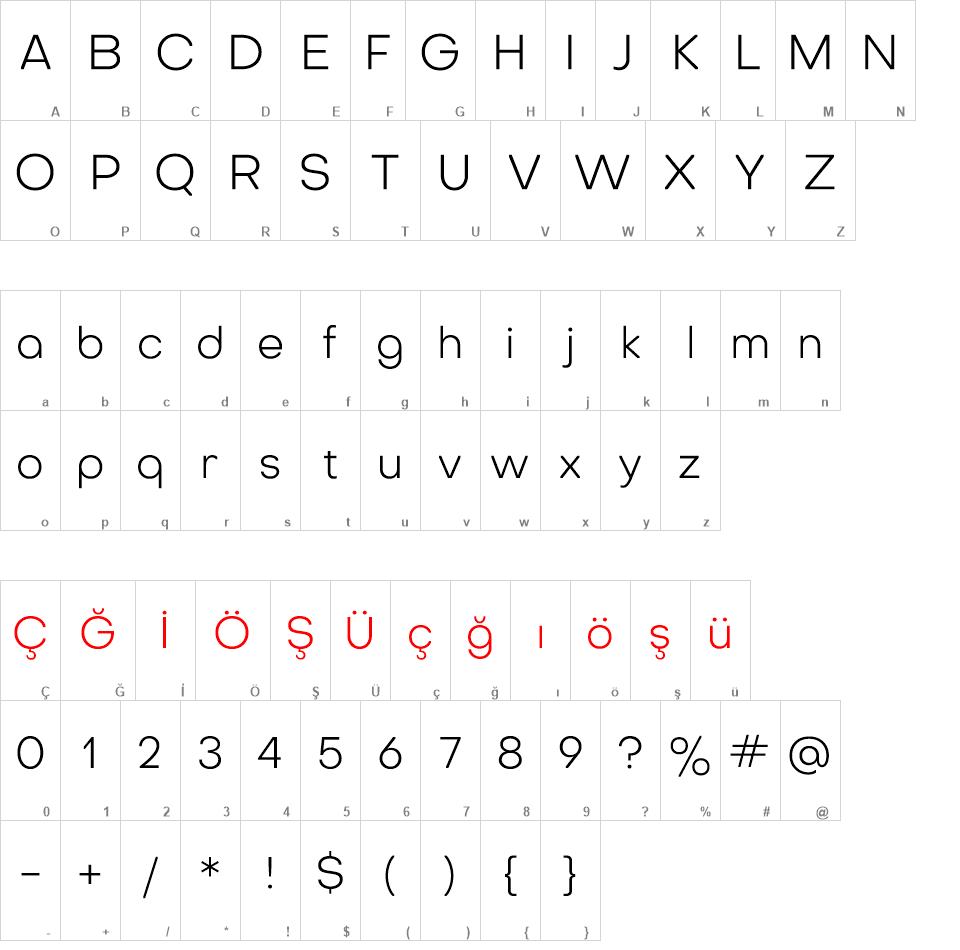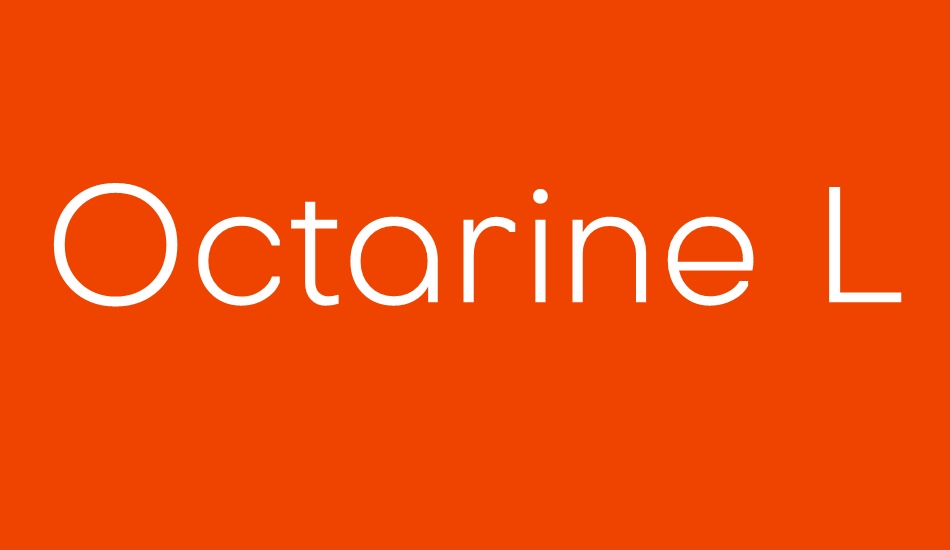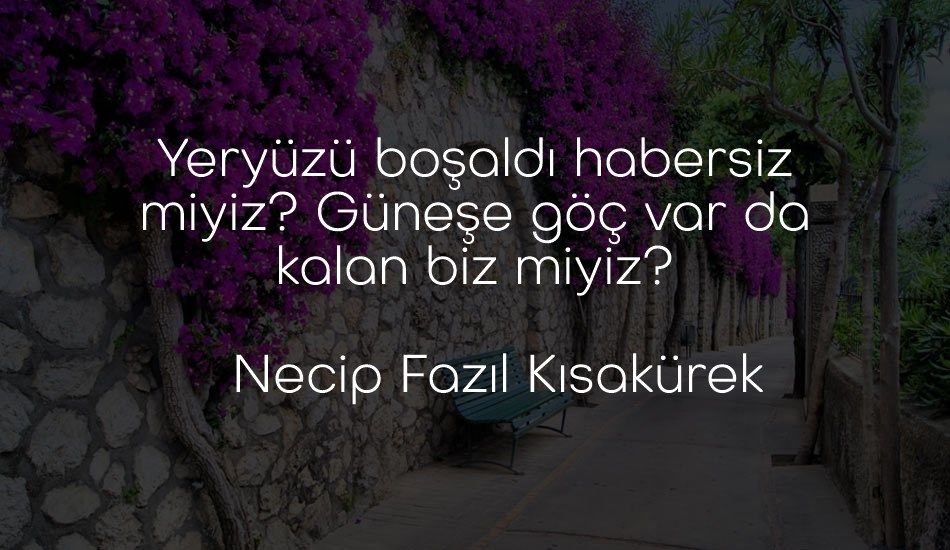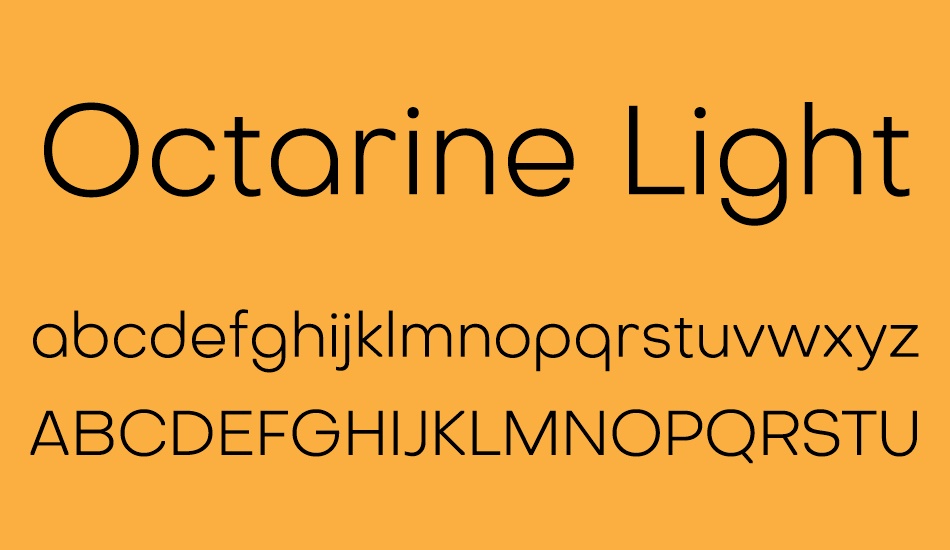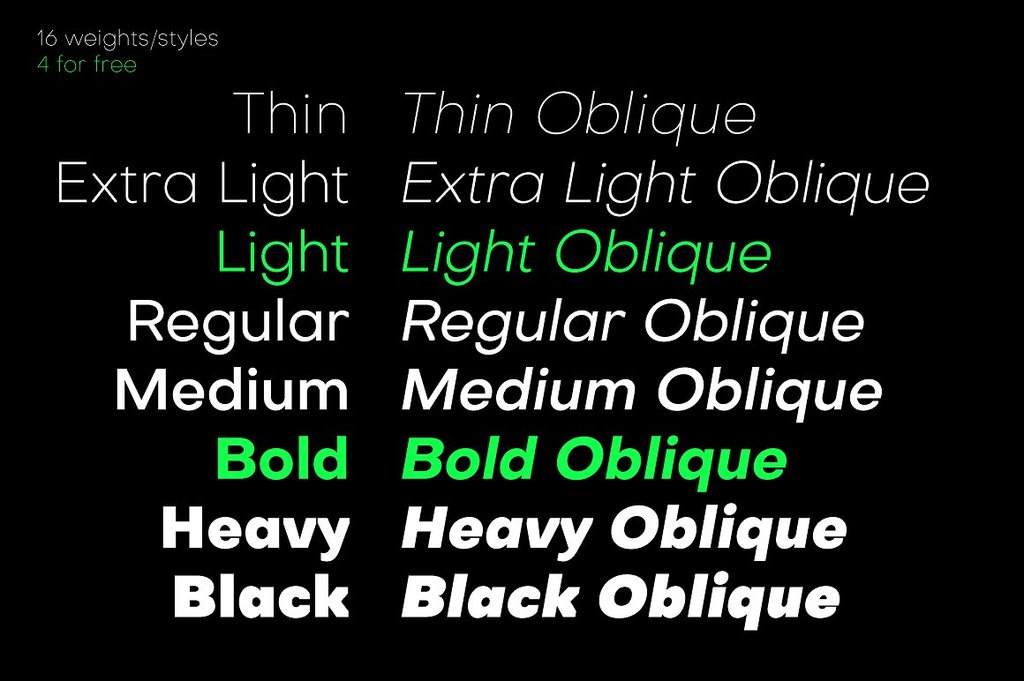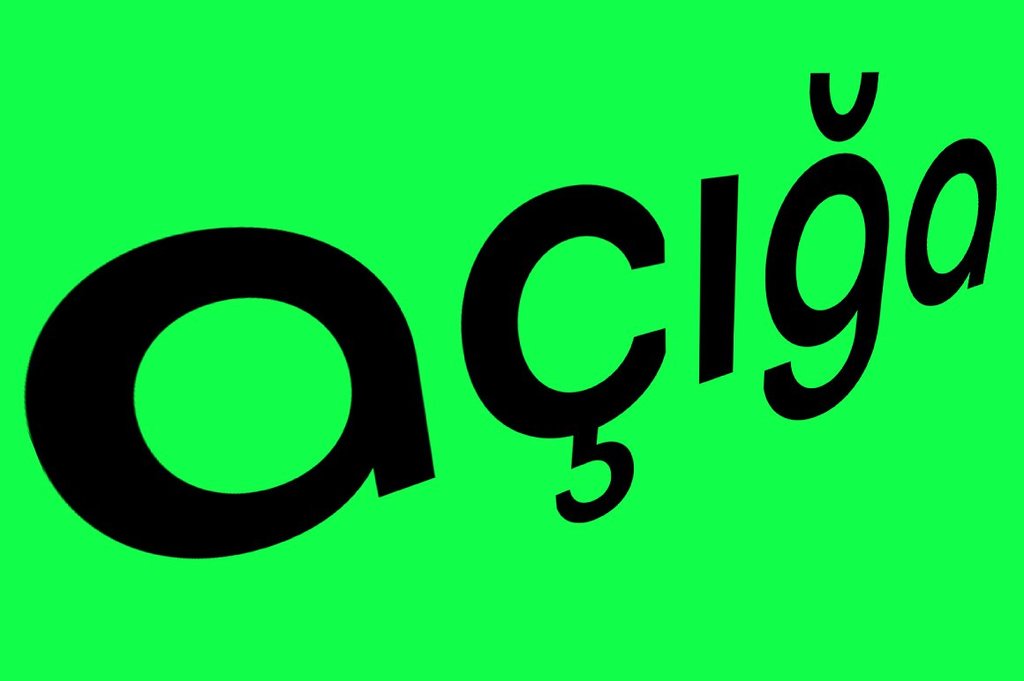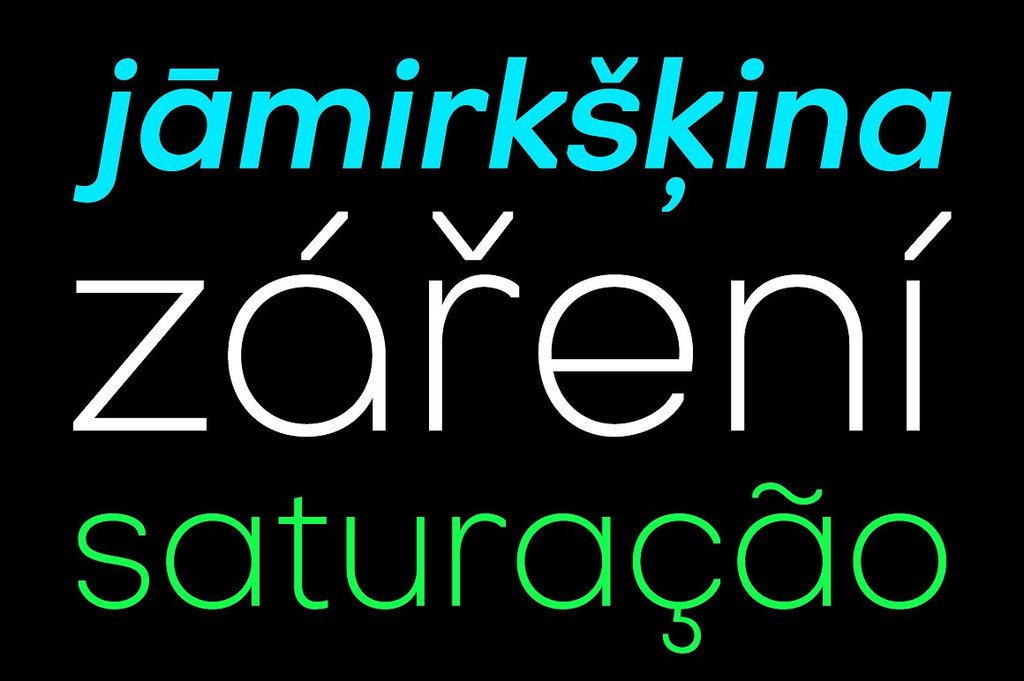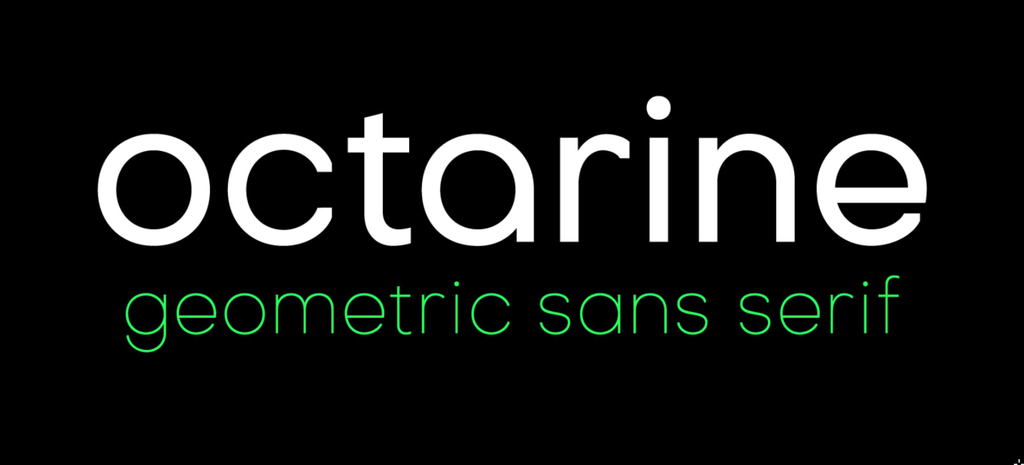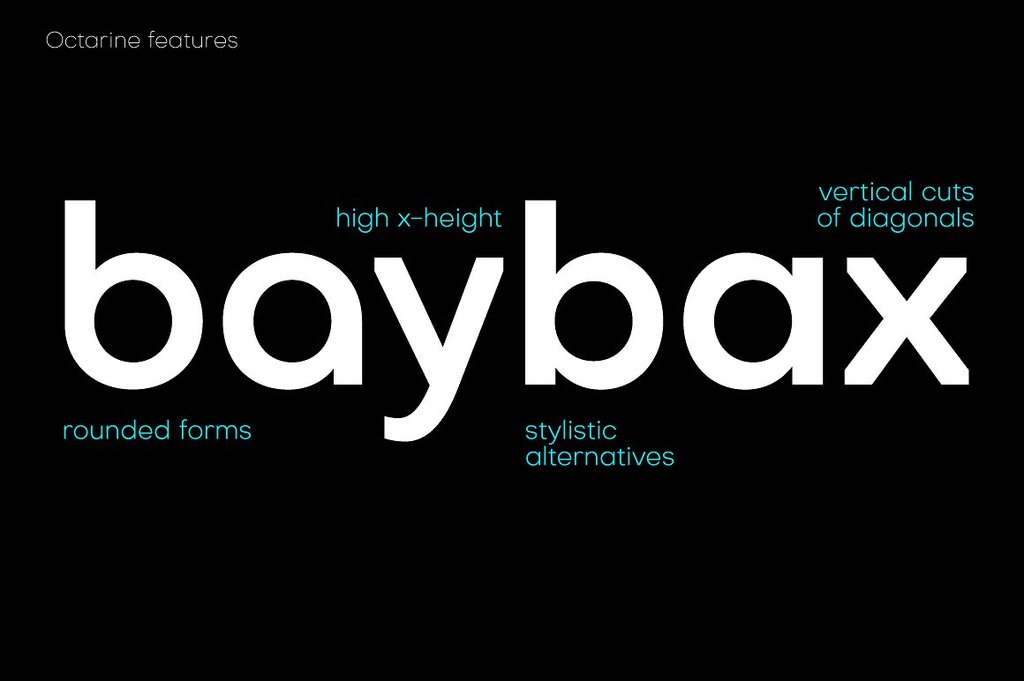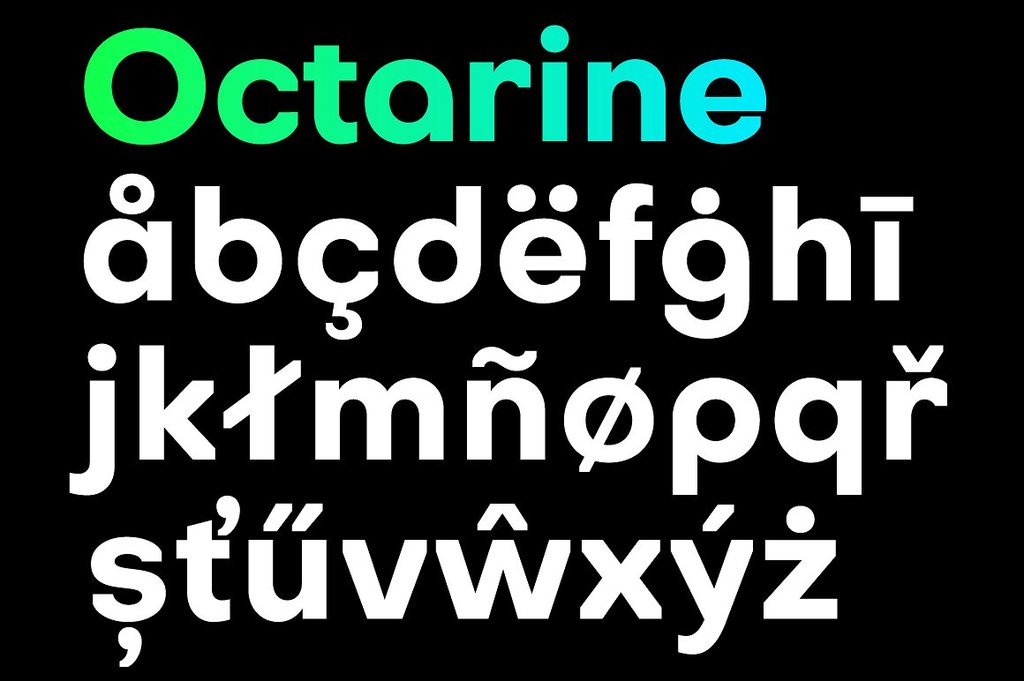
Octarine font
Octarine
Octarine is a geometric sans serif type family, which has its roots in classic Bauhaus times. It’s based on geometric grid, and its shapes are nice and soft. Nevertheless, you can see sharp elements here and there. That makes letters to look friendly and strong at the same time. Octarine is a modern universal typeface designed for logotypes, posters, covers, brands, headlines, titles, and for text.
Octarine Light font